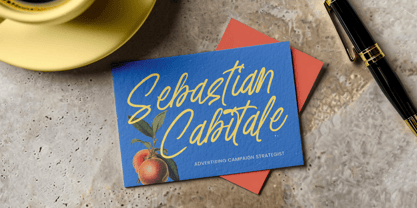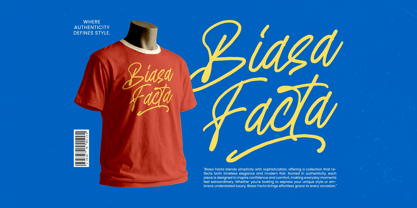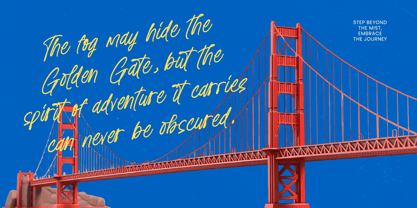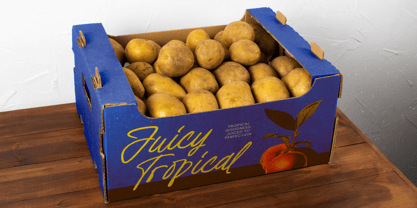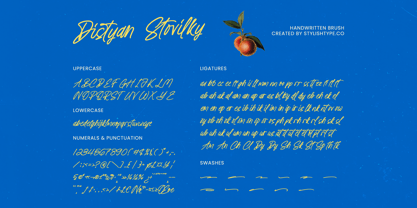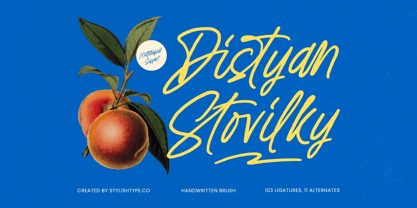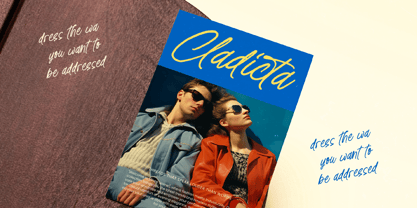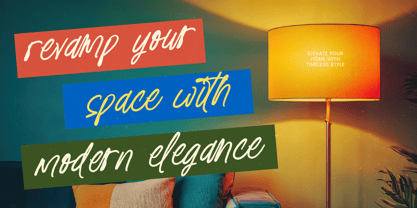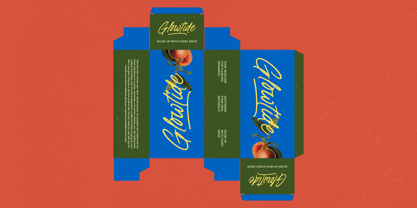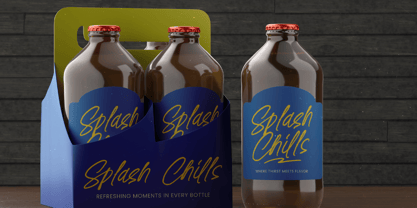
Distyan Stovilky
The Distyan Stovilky Font Family was designed by Heru Utama Putra and published by Stylishtype Studio. Distyan Stovilky contains 2 styles and family package options. More about this family
Distyan Stovilky – Handwritten Brush Distyan Stovilky is a vibrant handwritten brush script font designed with bold strokes and natural flow. The lettering feels energetic, expressive, and slightly textured, capturing the authentic movement of real brush handwriting. Its dynamic curves and confident lines give every word a strong visual presence. This font blends casual charm with modern style, making it perfect for lifestyle branding, product packaging, fashion campaigns, and eye-catching social media designs. The smooth connections and expressive swashes create a lively rhythm while maintaining readability for display use. Distyan Stovilky includes 103 ligatures and 11 stylistic alternates, allowing you to create seamless word combinations and custom lettering compositions. With multilingual support, this typeface is ready for global branding and versatile creative projects. If you’re looking for a handwritten brush font that feels bold, organic, and stylish,Distyan Stovilky delivers character and flexibility in every stroke.